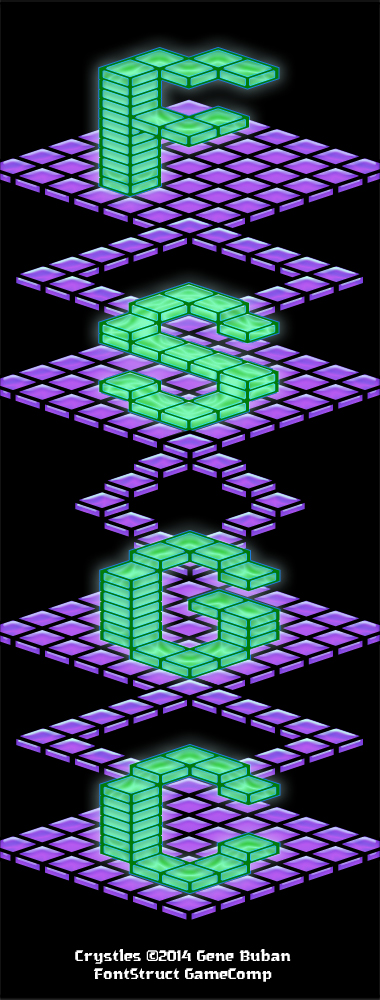
• In 1983, Atari released the Crystal Castles video game. You play Bentley Bear walking around castles and collecting gems. Trimetric instead of isometric. Interestingly enough, the initials of the highest scorer in the leaderboard is used to build the first castle. This font version is created using the same thin plated tiles that the player traverses through the castles. This was fun to do. I made the sample scroll down in like another 80s video game classic: Marble Madness. It was difficult fitting the whole thing within 48 grid squares, but totally possible. This was actually kept a little under at 46.
Smart, love it
great sample too
Nice work, and polished demo pic, as usual. 10/10
I have an idea for making a game out of this font. If only I can figure out isometric layering movement...
Good luck! I like it, master!
@geneus1: you are right about the trivia initials (e.g. "FXL")…
Your pseudo-iso font is not related to this anecdote, nonetheless they would have looked a great replacement (even playable with the ad hoc gateways?)!
Clean fontstruction (without shades).